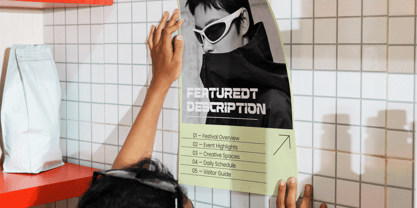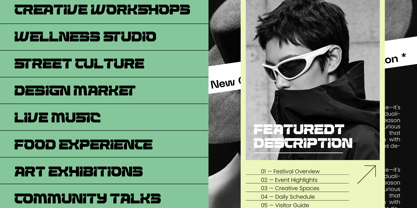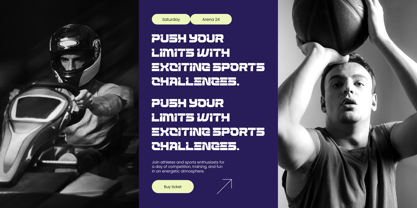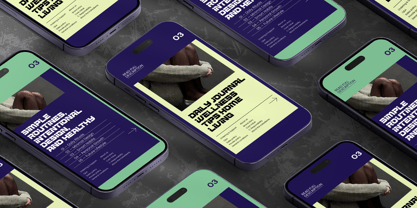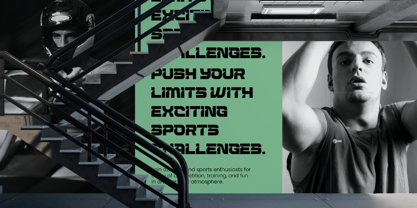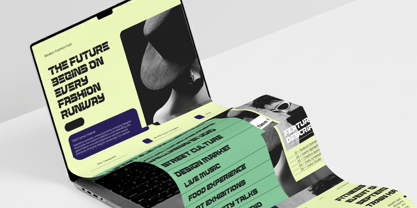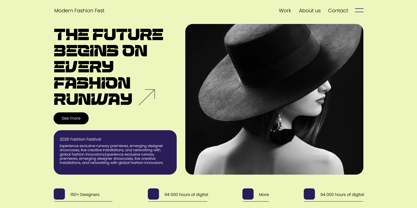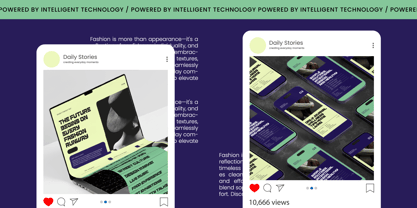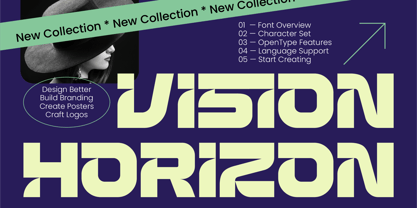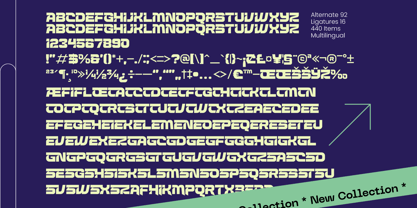
Vision Horizon
by Timelesstype Studio
The Vision Horizon Font Family was designed by Heru Utama Putra and published by Timelesstype Studio. Vision Horizon contains 2 styles and family package options. More about this family
Elevate your brand’s visual identity with a typeface that defines the leading edge of contemporary design. Vision Horizon - Futuristic Display Font is a meticulously crafted modern bold display typeface designed to command attention and convey a sense of structural power. Its geometric precision and heavy visual weight make it an indispensable asset for creators looking to push the boundaries of high-tech aesthetics and avant-garde layouts.